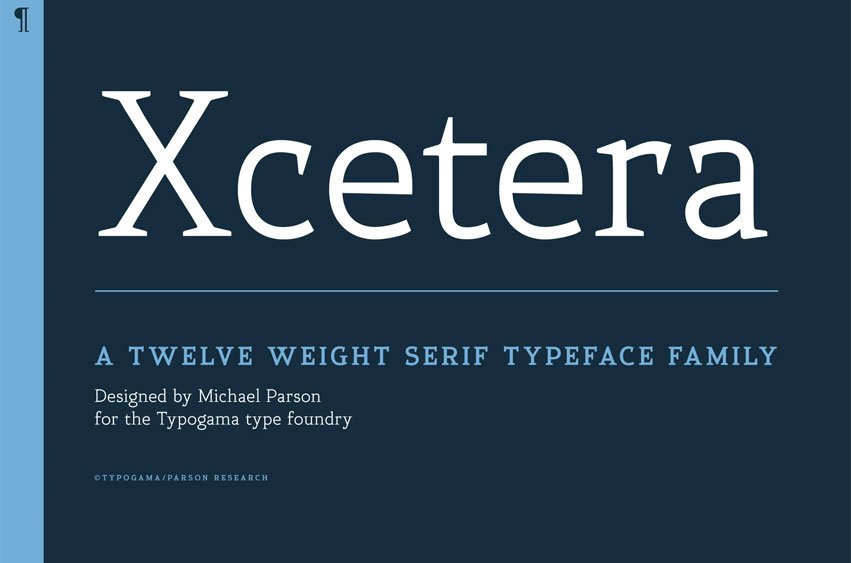
Xcetera Font With a desire to blend a historical vision with a rational approach inspired by the modernist designers, Xcetera is a twelve weight serif typeface family. With a strong geometric foundation that blends hints of a more historical attention to detail, it can evoke both a classical world while remaining fresh and engaging for a more contemporary public.
Available as a twelve weight family, it can support a wide range of latin based languages and thanks to the expanded Opentype features, now has a range of offerings to make the typeface adapt best to each context and setting. Xcetera is delivered as static 12 Opentype weights (OTF) or as a single Variable font (VAR TTF) that will allow the user to control either the weight or italic slant.